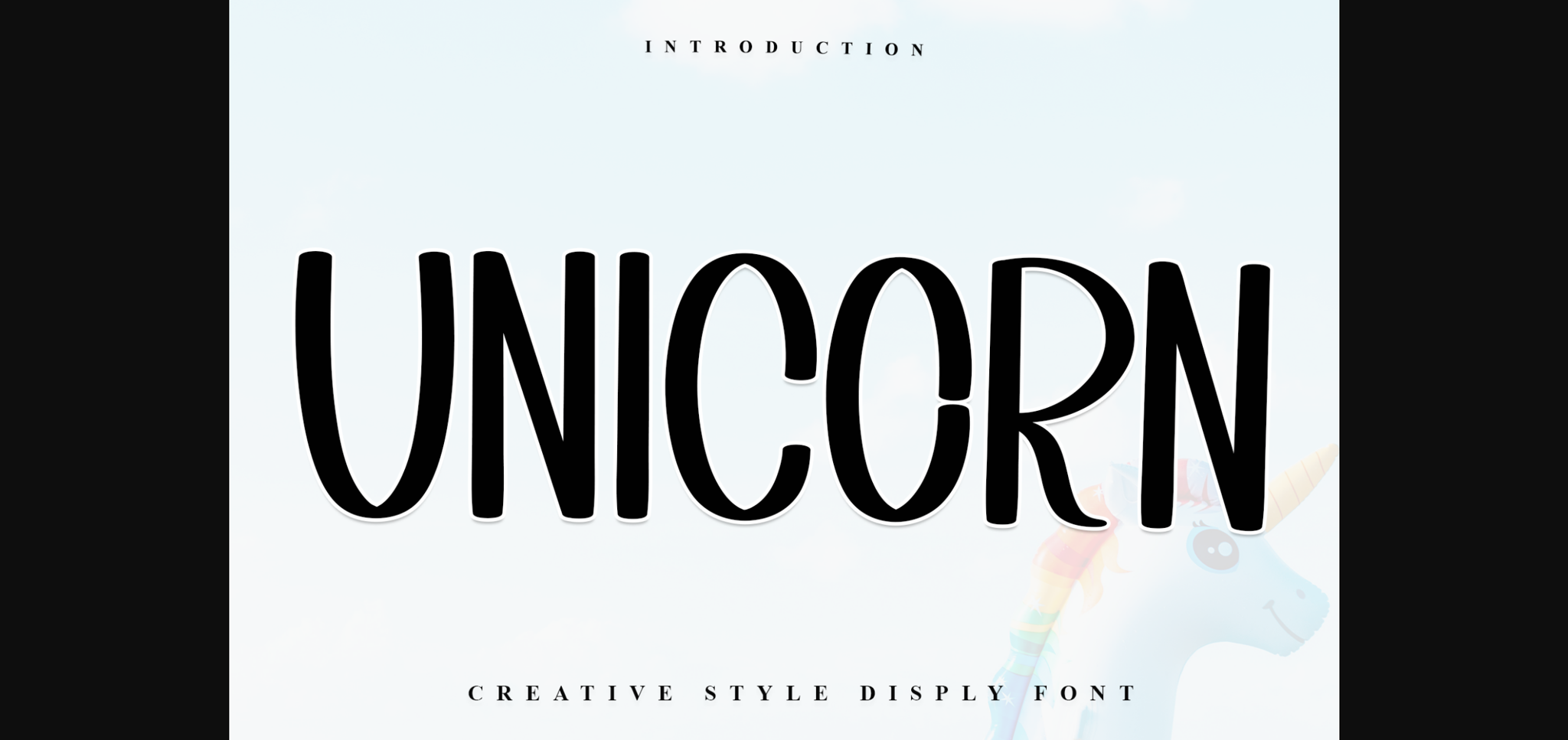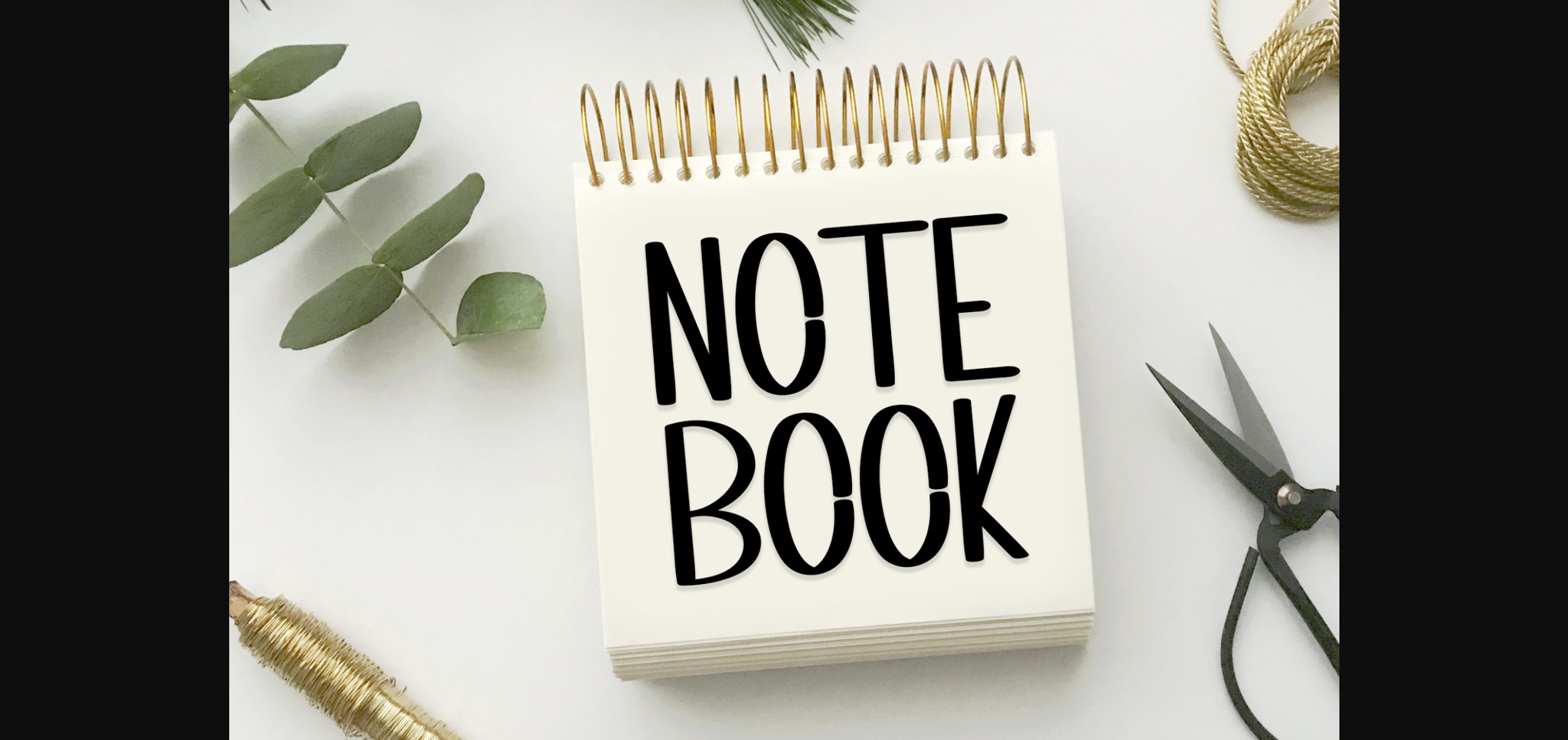
About Unicorn Font
Unicorn is a charming sans-serif font imbued with a sense of freshness and casual elegance. Its fluid strokes and organic lines evoke a laid-back vibe, making it perfect for various design projects. Whether used for branding, invitations, or social media graphics, Unicorn adds a touch of warmth and personality.